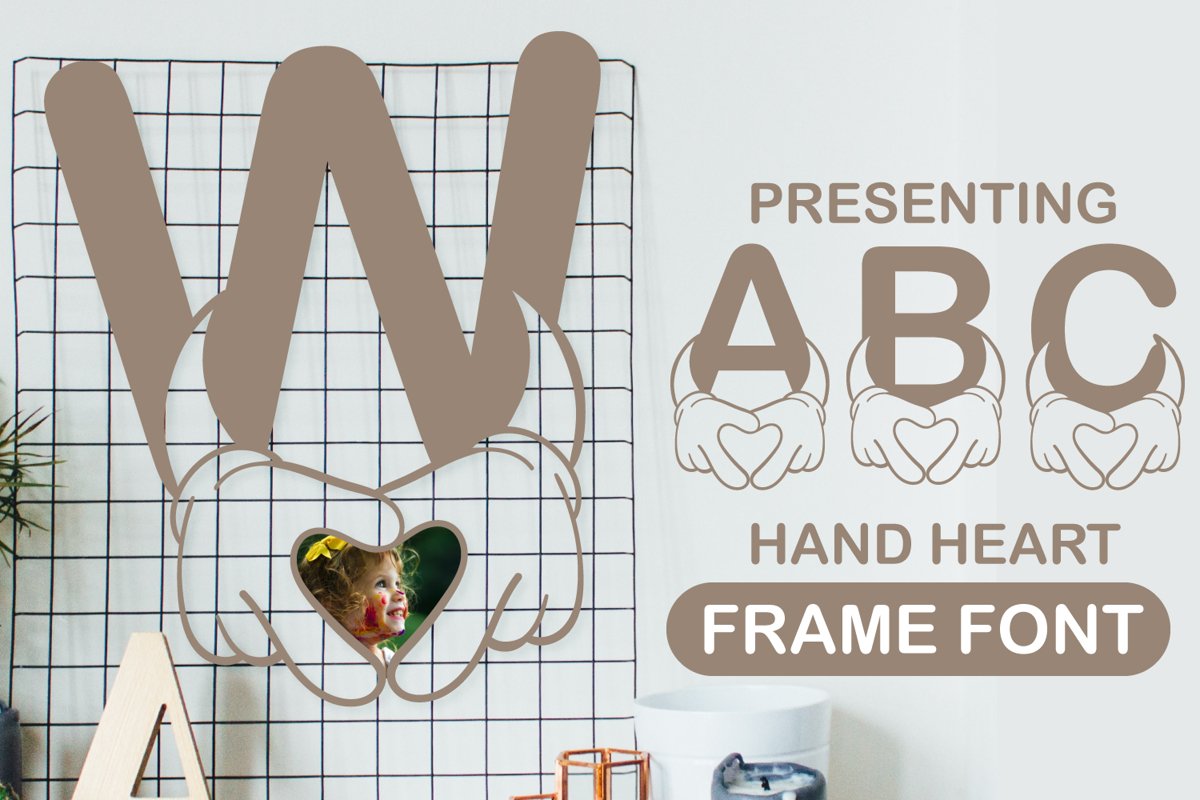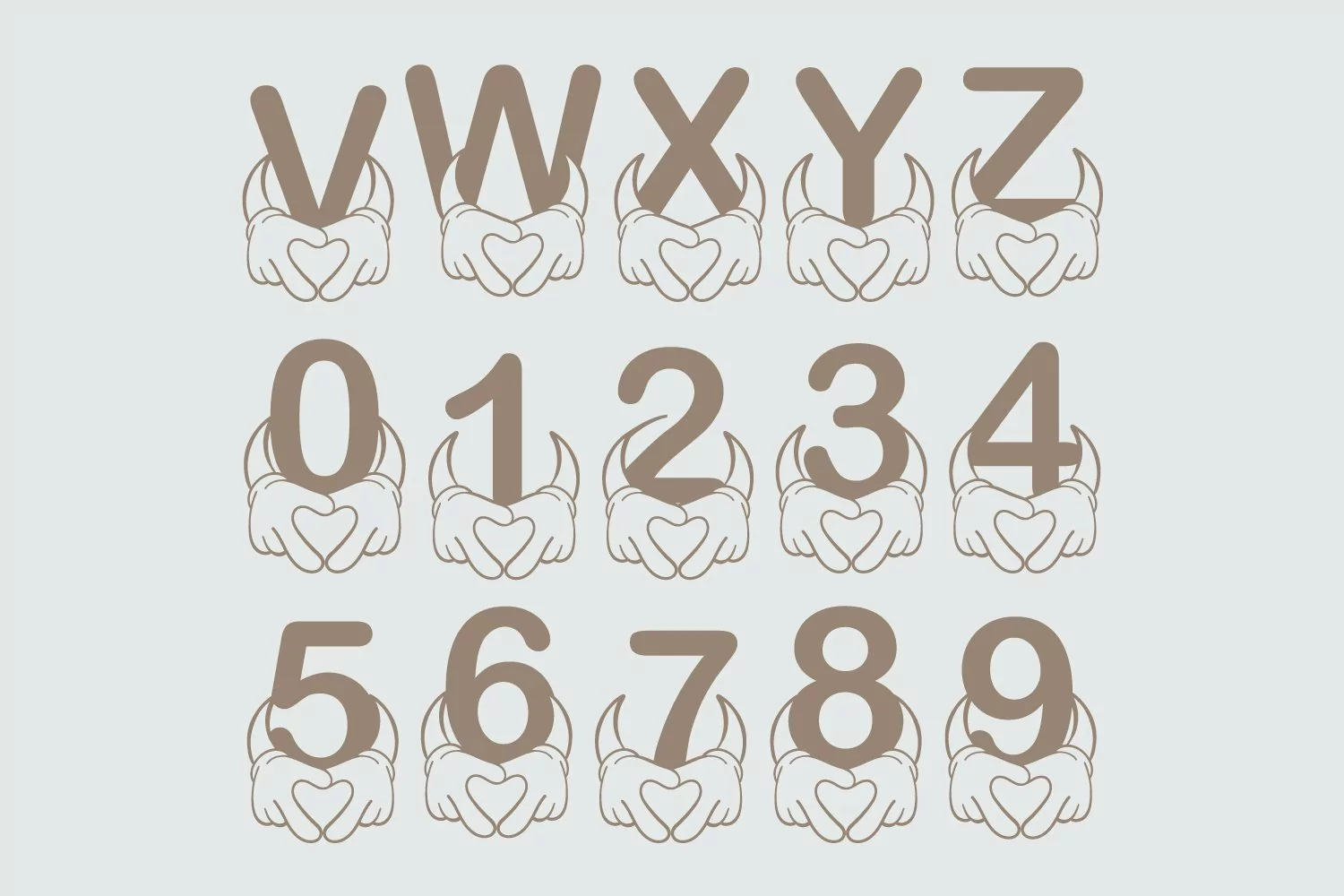
Presenting Cute font for you. A Alphabet Hand Love Frame Cute Paper cut Style Font can be used in tons of projects specially for child and new born projects. You can use it for craft purpose and this will looks great on shirts, printing material and other stuff.
2- UPPER Case only Letters A to Z and 0 to 9
3- Super Cute and Creative